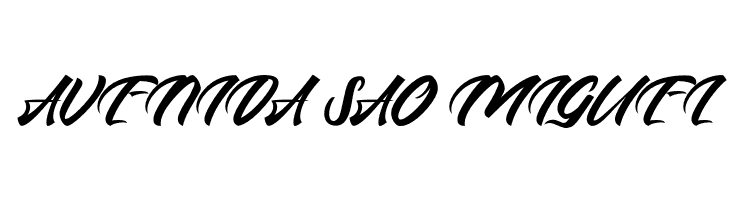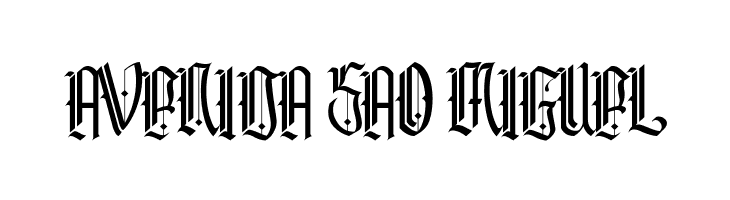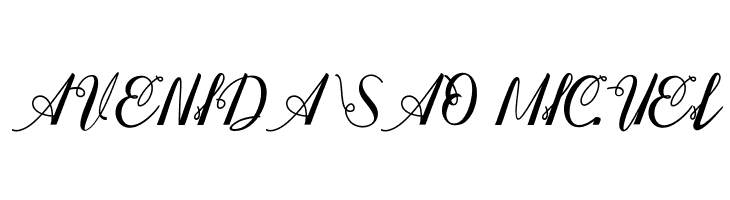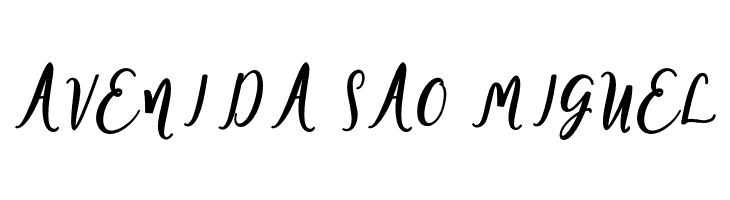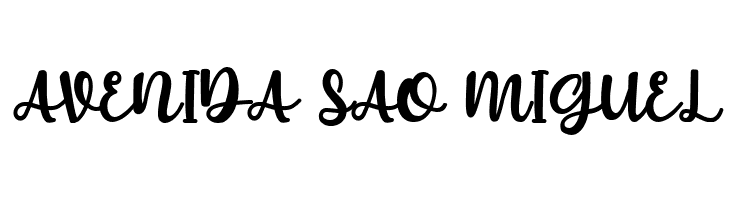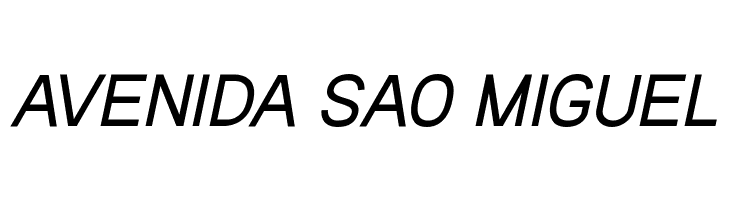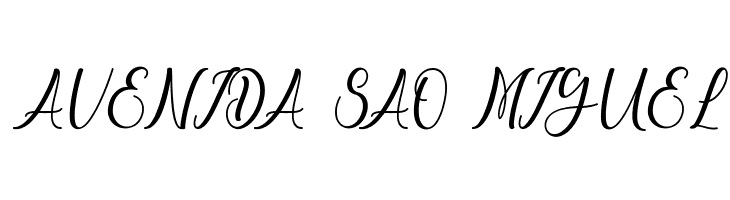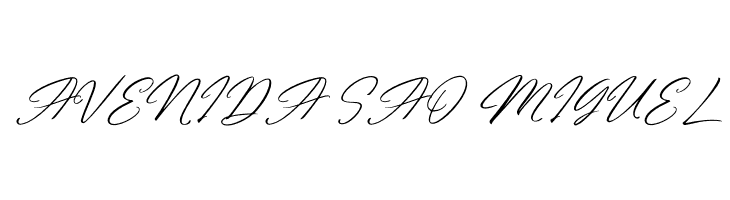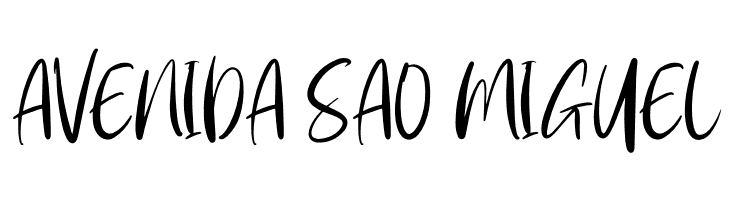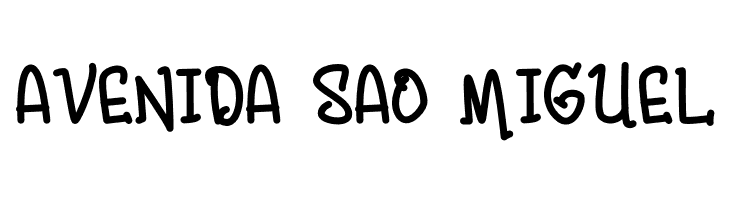
• Andala Italic
A modern italic font with smooth curves and a sleek design.
• Andalan
A fluid and elegant script font with a modern, dynamic style.
• Andalan
A dynamic and fluid script font with a modern, playful style.
• Andalan art design
A playful, artistic script font with flowing, cursive design.
• Andalan Eug
A lively, handwritten font with fluid strokes and a modern, casual aesthetic.
• Andalan-artdesign
An elegant, flowing script font with ornate uppercase and smooth lowercase characters.
• Andalas
A bold, decorative font with vintage flair and high contrast strokes.
• Andalas Regular
A bold, flowing script font with elegant, connected characters.
• Andalas Regular
A bold, expressive script font with flowing, cursive letterforms.
• Andallan
A modern, clean sans-serif font with geometric shapes and uniform stroke width.
• Andalusia
A fluid, handwritten script font with a casual elegance.
• Andalusia Regular
A classic, ornate font with Gothic influences and intricate detailing.
• Andalusia Signature
A flowing, cursive font with elegant, connected strokes.
• Andalusia Signature Italic
A sophisticated, cursive script font with a handwritten elegance.
• andalusia-Regular
A cursive, handwritten-style font with elegant, flowing strokes.
• Andalusya
A flowing, elegant handwritten font with elongated, smooth strokes.
• Andalusya
A playful, handwritten cursive font with elongated, fluid strokes.
• Andalusya[Demo]
A playful, handwritten font with bold, rounded characters and a casual style.
A modern, decorative font with elongated, narrow letterforms and artistic flair.
• Andegleisan
A modern, artistic font with elongated, narrow characters and high contrast strokes.